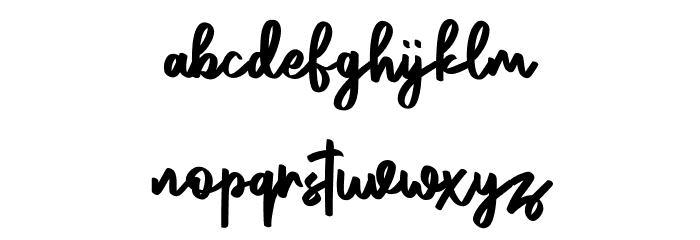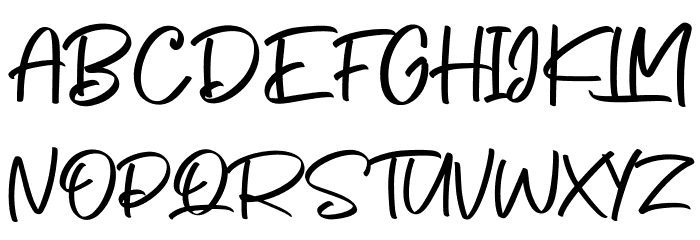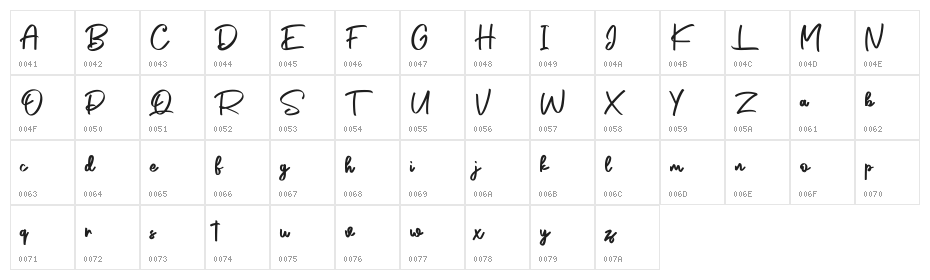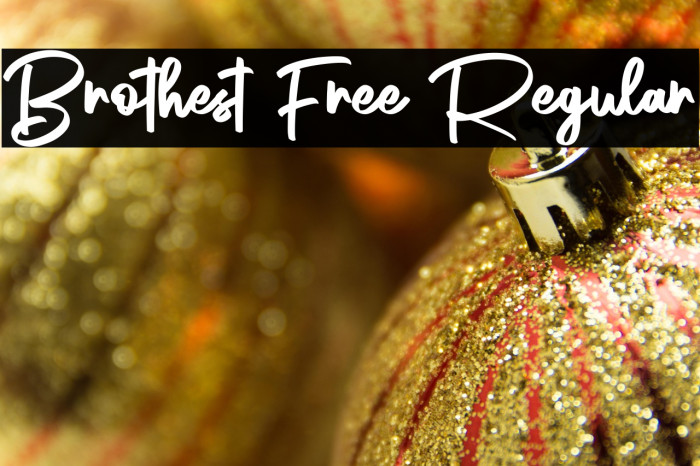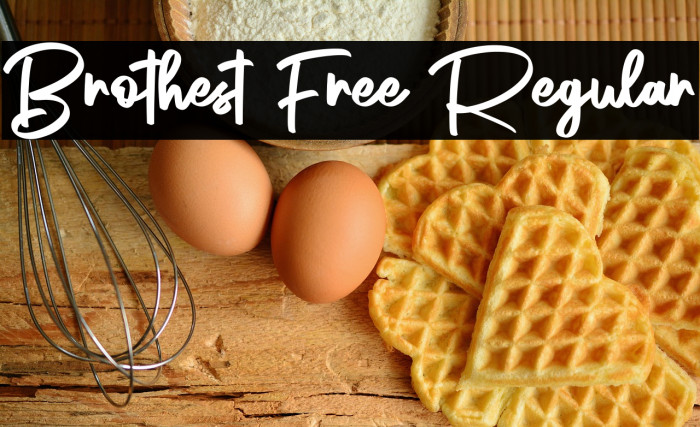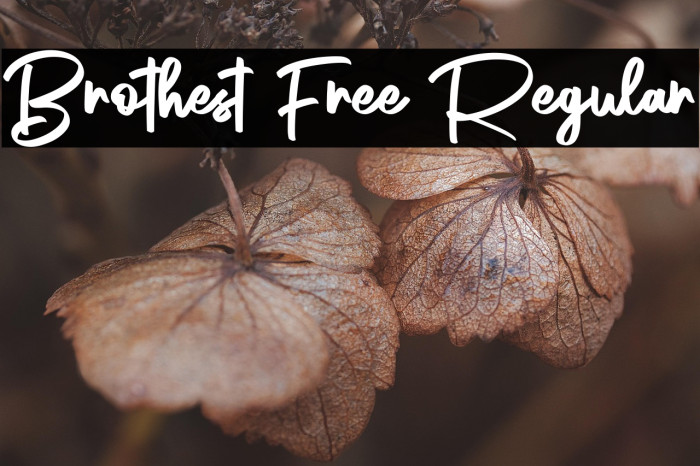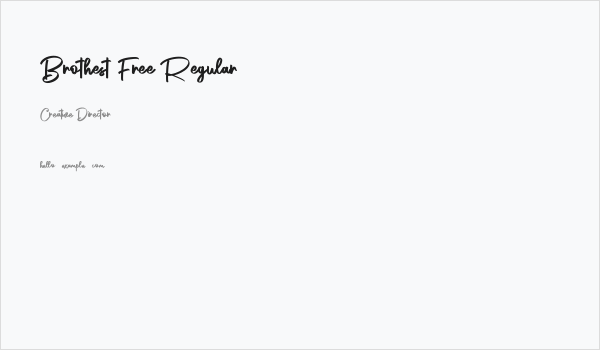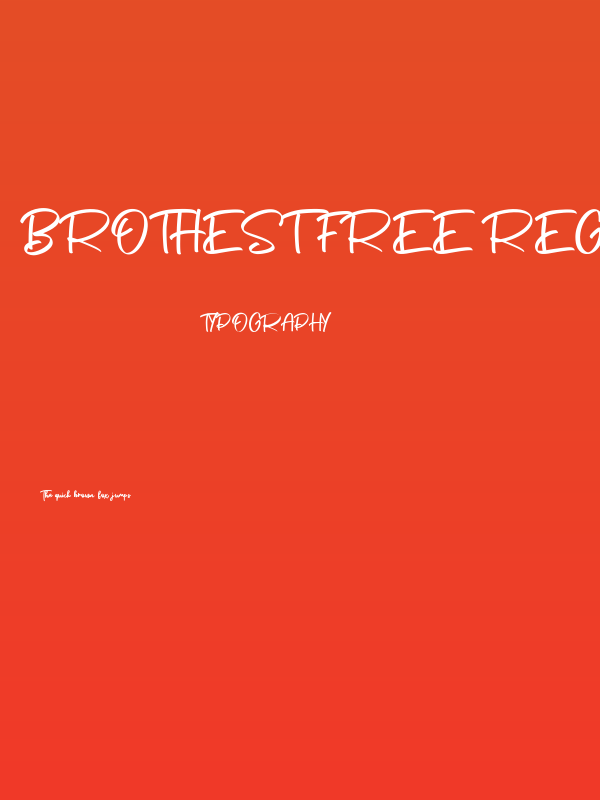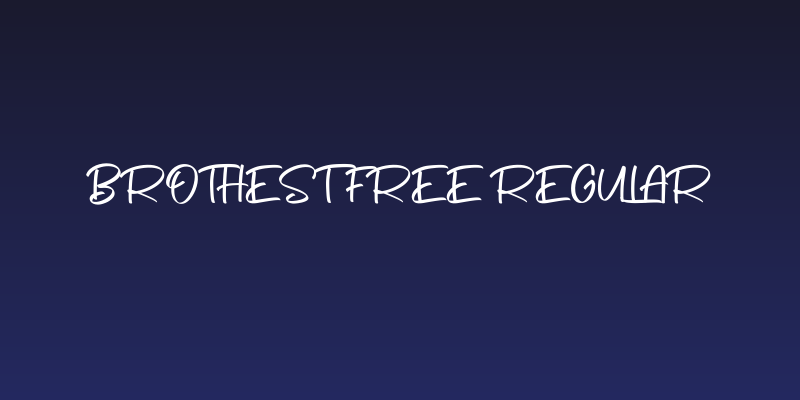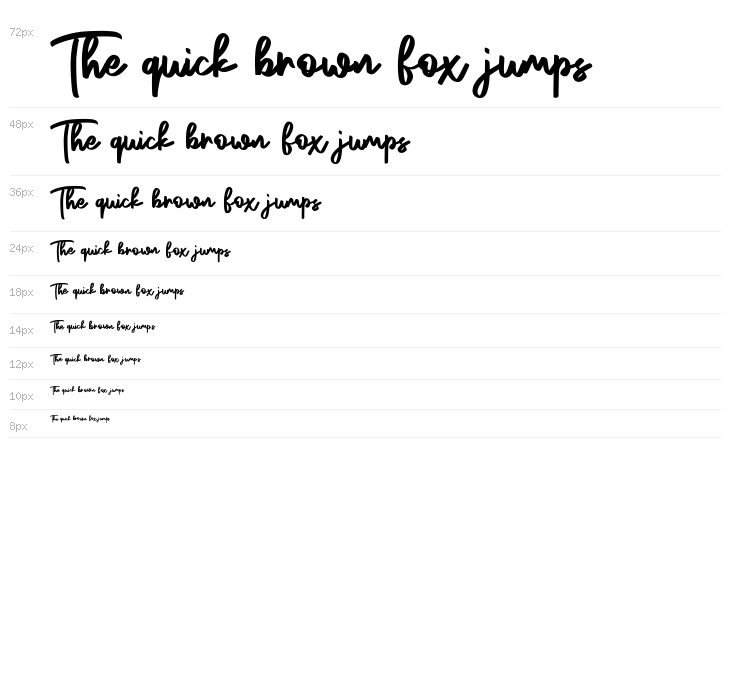
Brothest Free Regular Font
This font features a bold, handwritten style with a playful and energetic flair. The uppercase letters are tall and slightly condensed, with a consistent stroke width that gives them a strong presence. The lowercase letters are more fluid and connected, resembling a casual script with a friendly and approachable feel. The numbers and special characters maintain the same lively style, ensuring a cohesive look across all text elements. This font is perfect for projects that require a personal touch, such as invitations, greeting cards, or branding materials that aim to convey warmth and creativity.
- Proposed Projects: Ideal for invitations, greeting cards, branding, and creative projects.